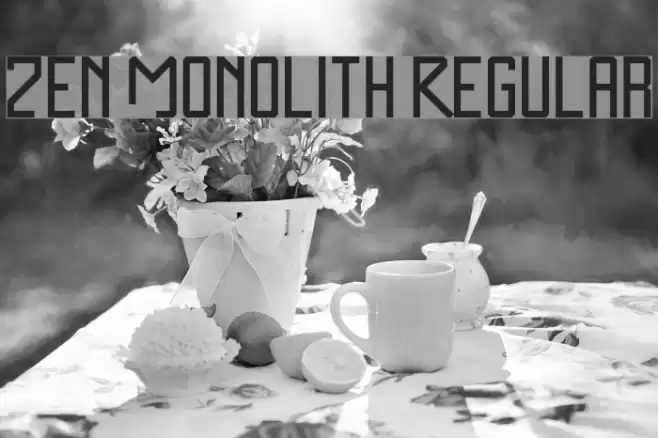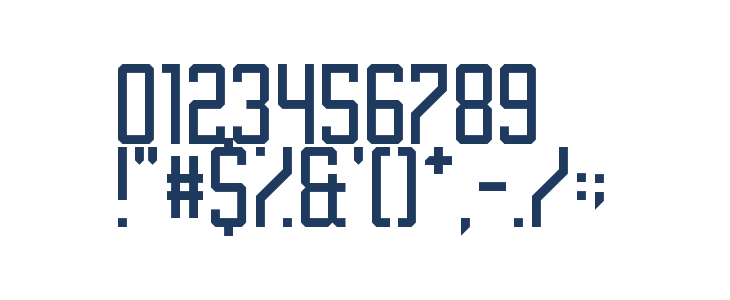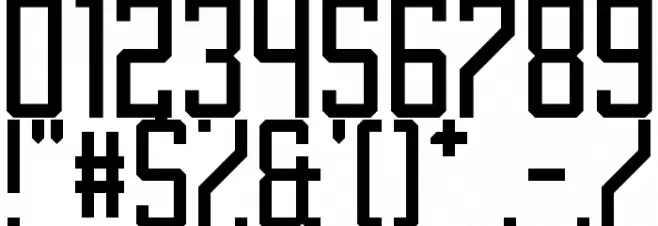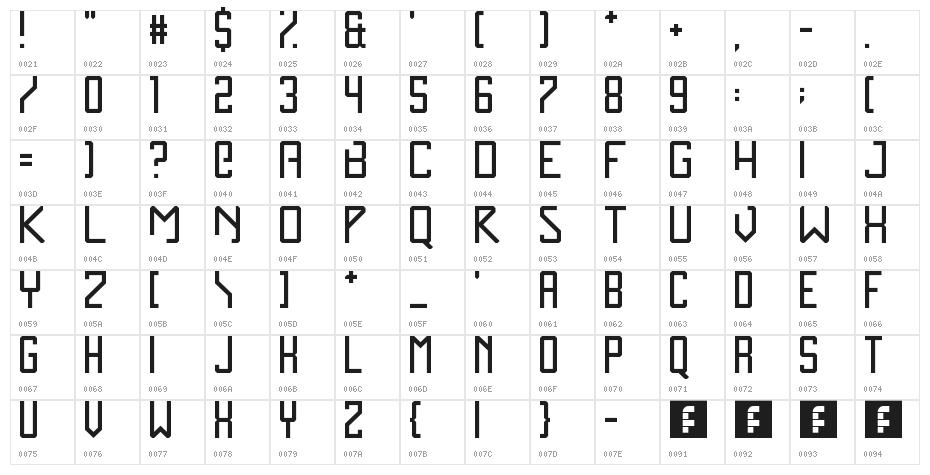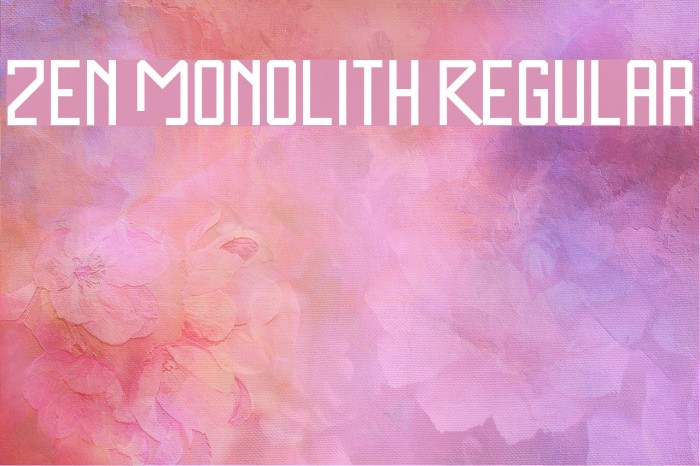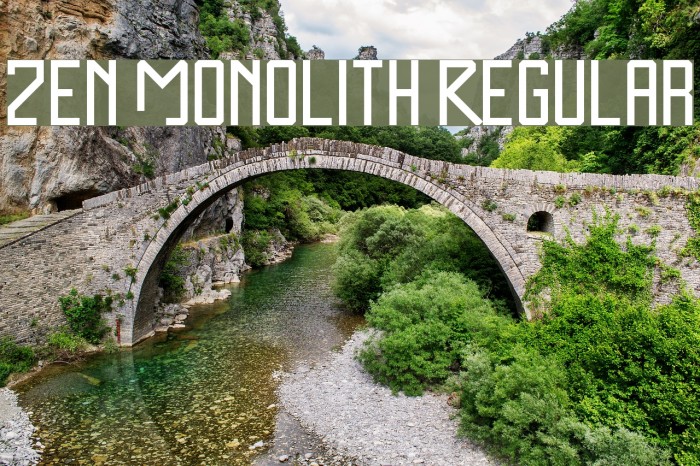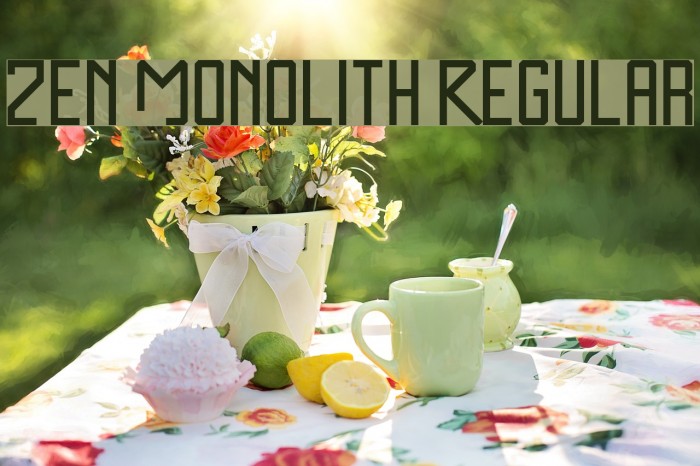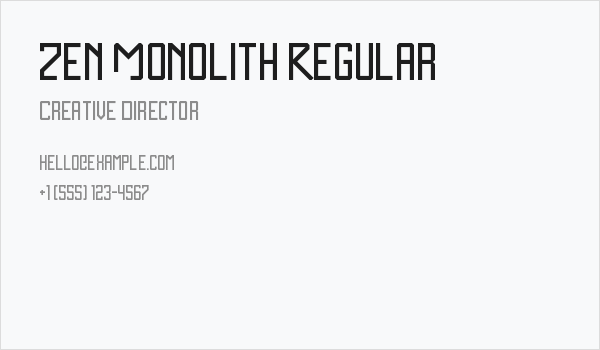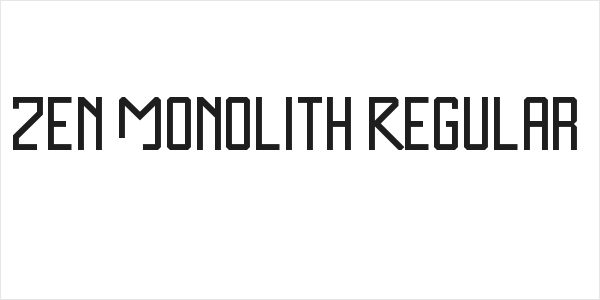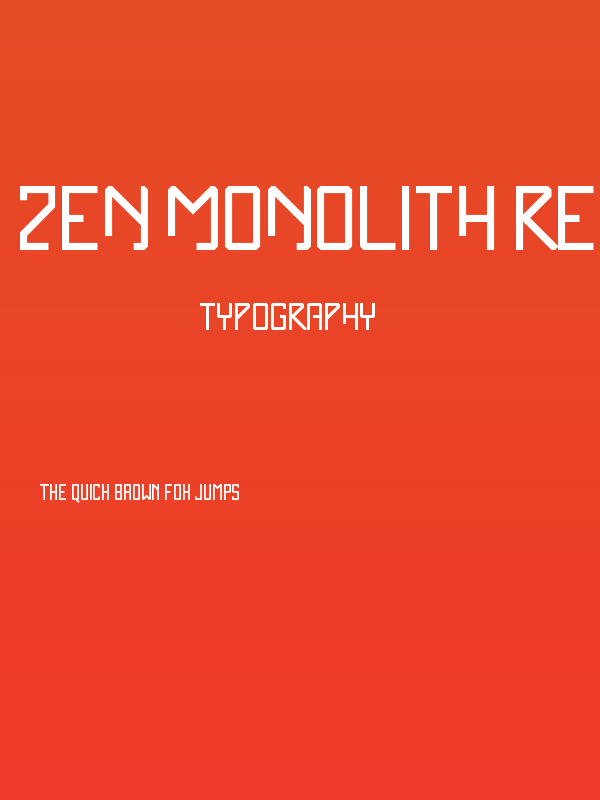
Zen Monolith Regular Font
Zen Monolith Regular Description
This font features a geometric and monospaced design, characterized by its bold and uniform stroke width. The characters are constructed with straight lines and sharp angles, giving it a futuristic and industrial feel. The uppercase and lowercase letters maintain a consistent height, enhancing its monospaced nature. The numerals and special characters are designed to match the angular style, ensuring a cohesive look across all glyphs. This font's clean and structured appearance makes it suitable for projects that require a modern and technical aesthetic.
A geometric, monospaced font with a bold, industrial design from Uncategorized fonts.
- Proposed Projects: Ideal for technology branding, coding interfaces, modern posters, and architectural designs.
- Use Case: Headlines, Logos, Coding Interfaces